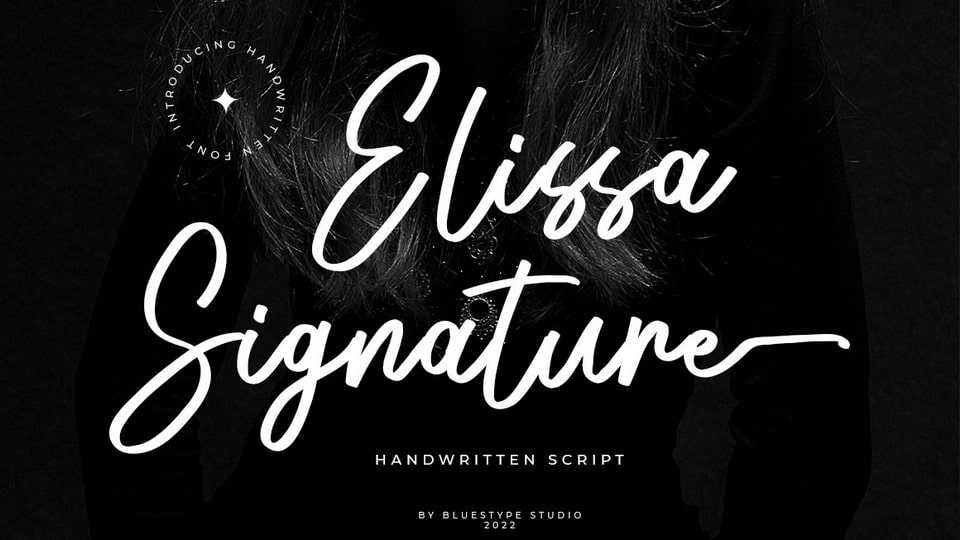
Download Elissa Signature font, a sweet script typeface with legibility and authenticity. Use Alissa font for any design project that requires a personalized appearance.